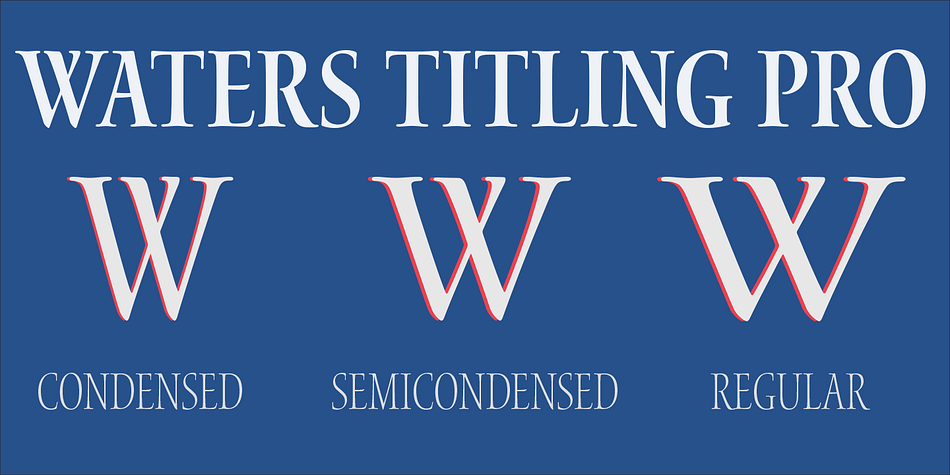
Waters Titling® Pro is a display serif font family. This typeface has twelve styles and was published by Adobe.
In 1997, renowned lettering artist Julian Waters embodied his classical calligraphic roman capitals in a graceful typeface, aptly named Waters Titling. In 2001, the original design was enhanced and unified in the new OpenType format.
This broad-edged pen design is related to other historically-based titling alphabets but offers a wider range of weights and widths, making it a versatile choice for movie titles, book jackets, posters, banners, and calendars. Waters Titling is rooted in the timeless Roman monumental inscription forms of 2000 years ago, but is infused with contemporary vigor and flair. This calligraphic design has strong contrast between its thick and thin strokes, and flowing serifs with subtle brackets. In its lighter weights the design is elegant and delicate, while the bolder weights offer substance and sparkle.